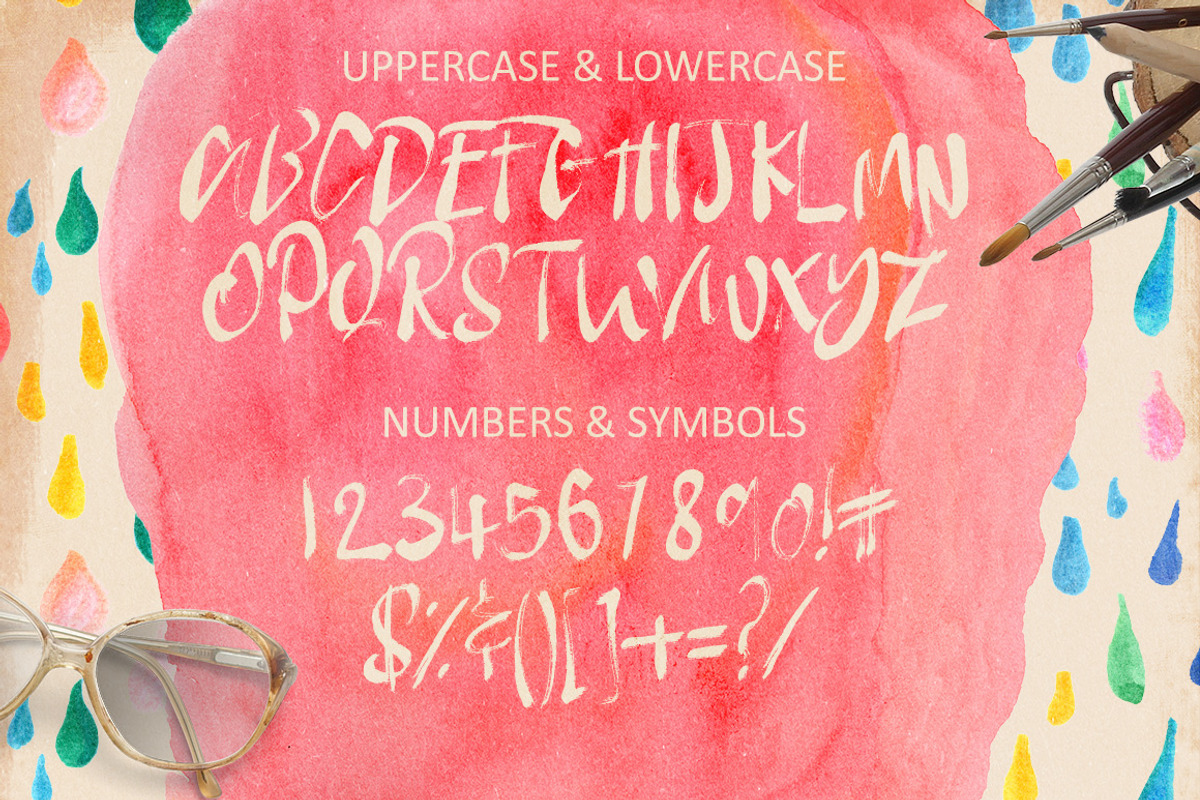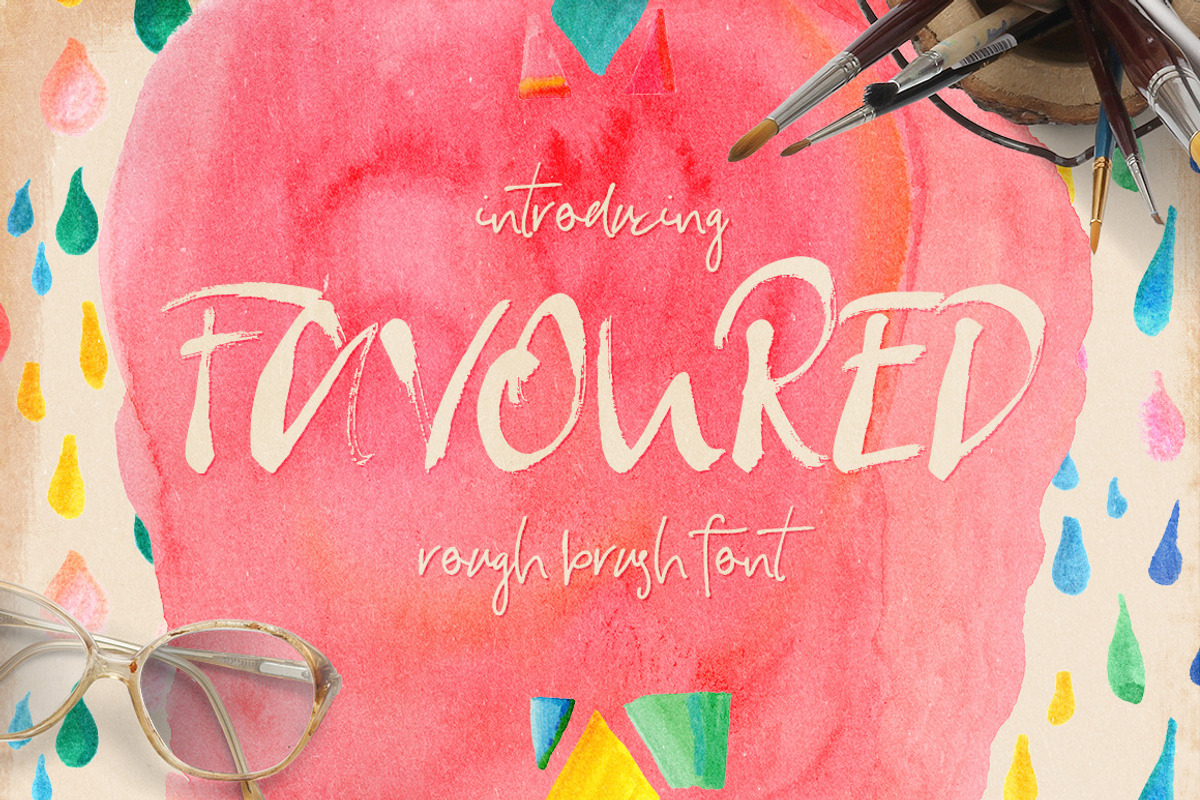
Favoured Font
Favoured - a cool brush caps font. This font is part of the Gobsmacking Font Bundle
Why Favoured Font is worth a look
Favoured Font by Creativeqube Design fits naturally into Branding, posters, packaging, typography.